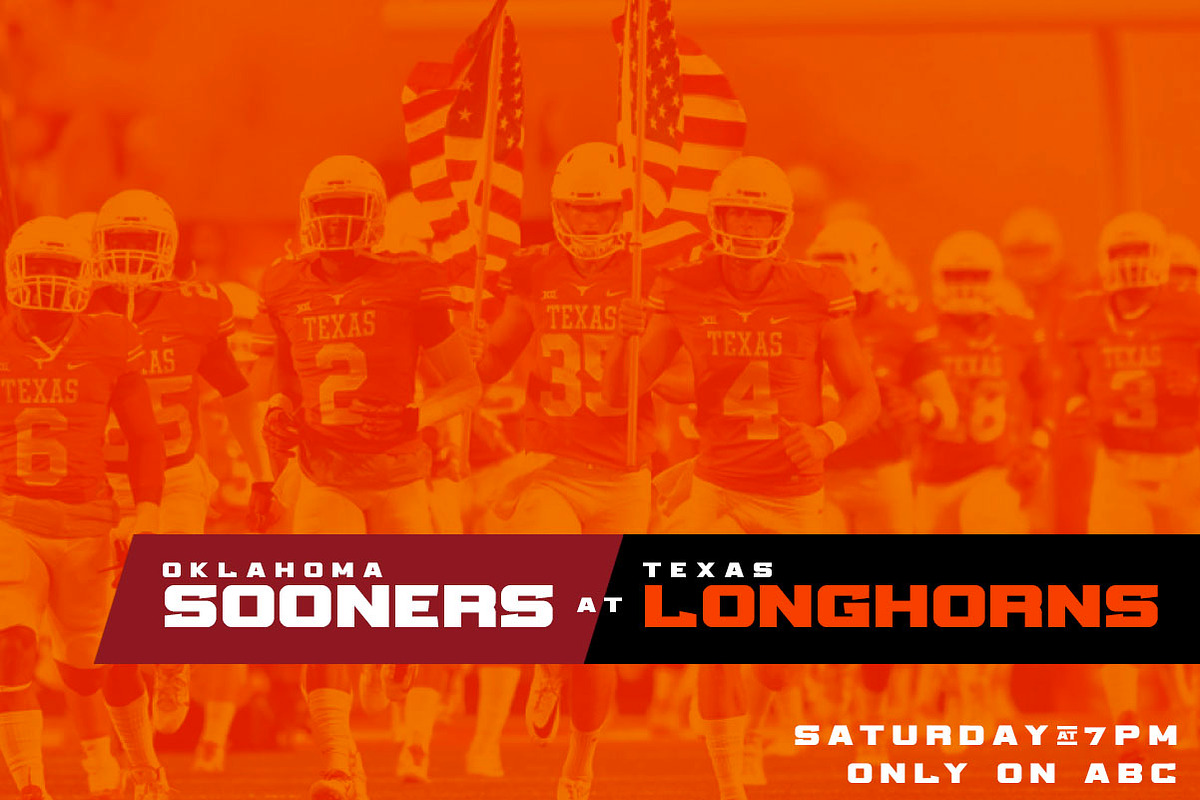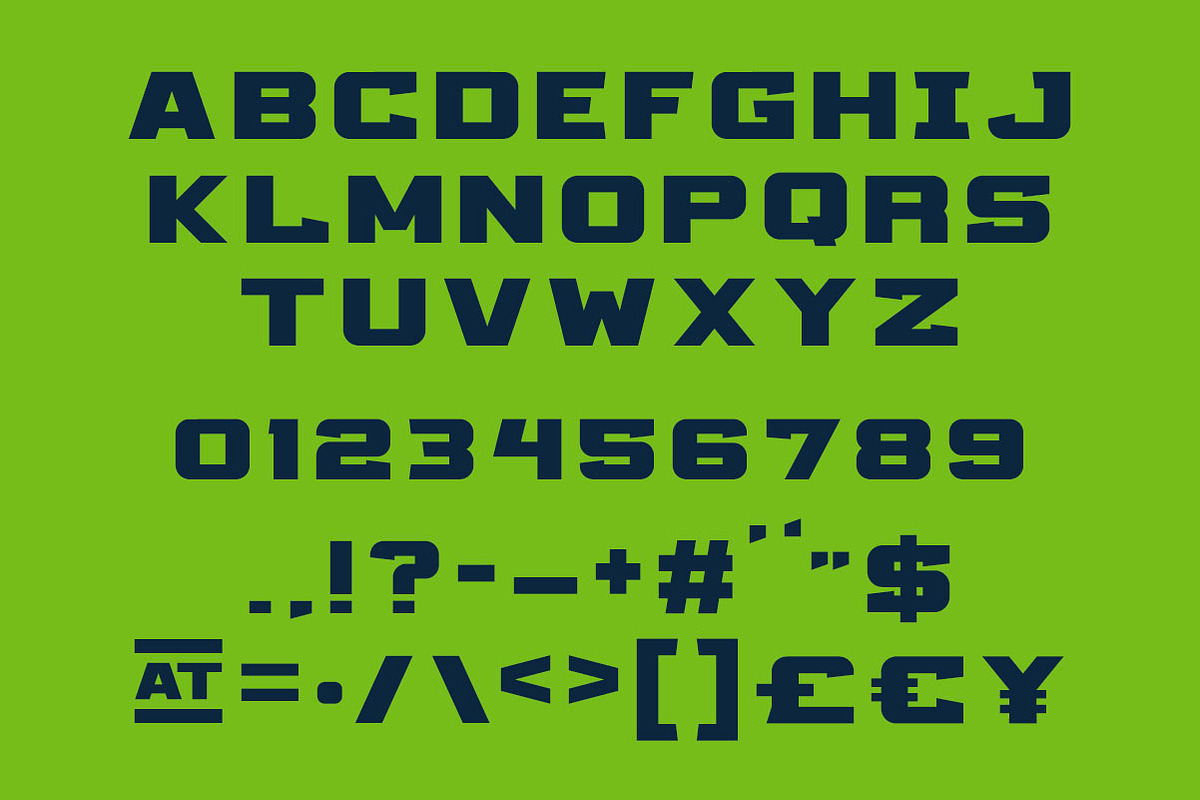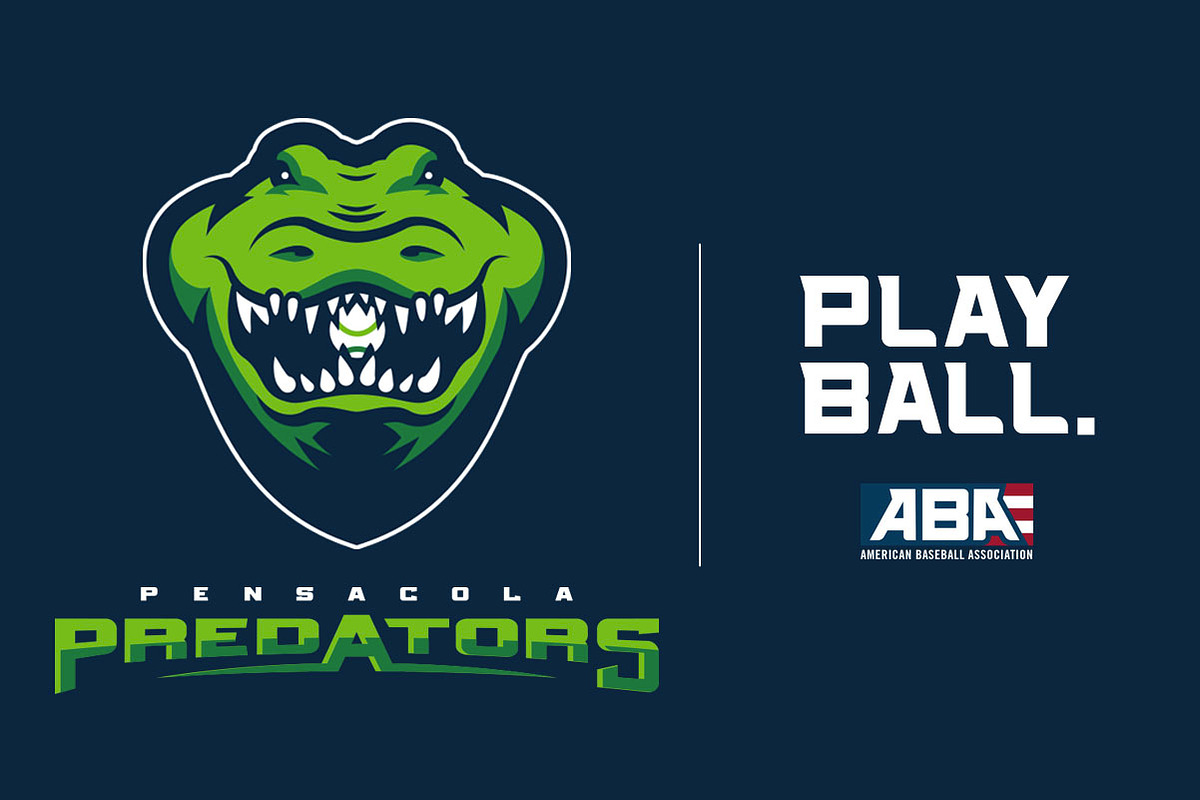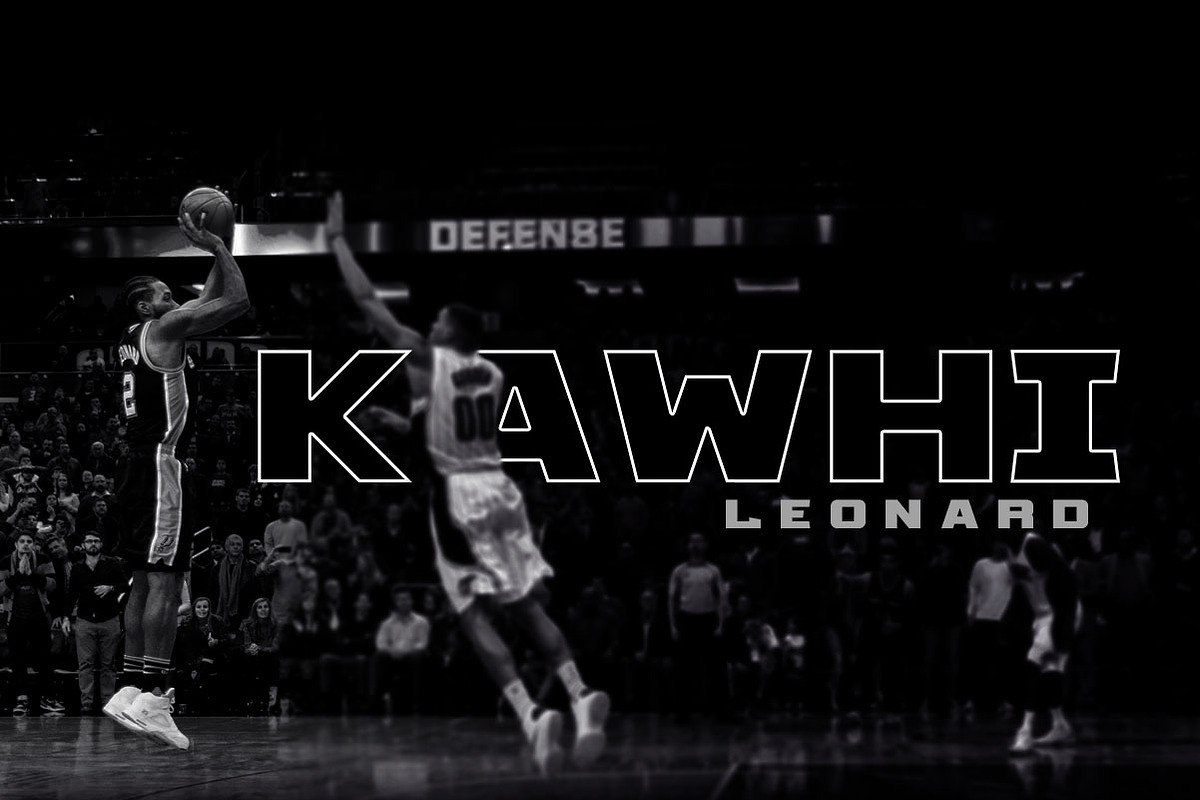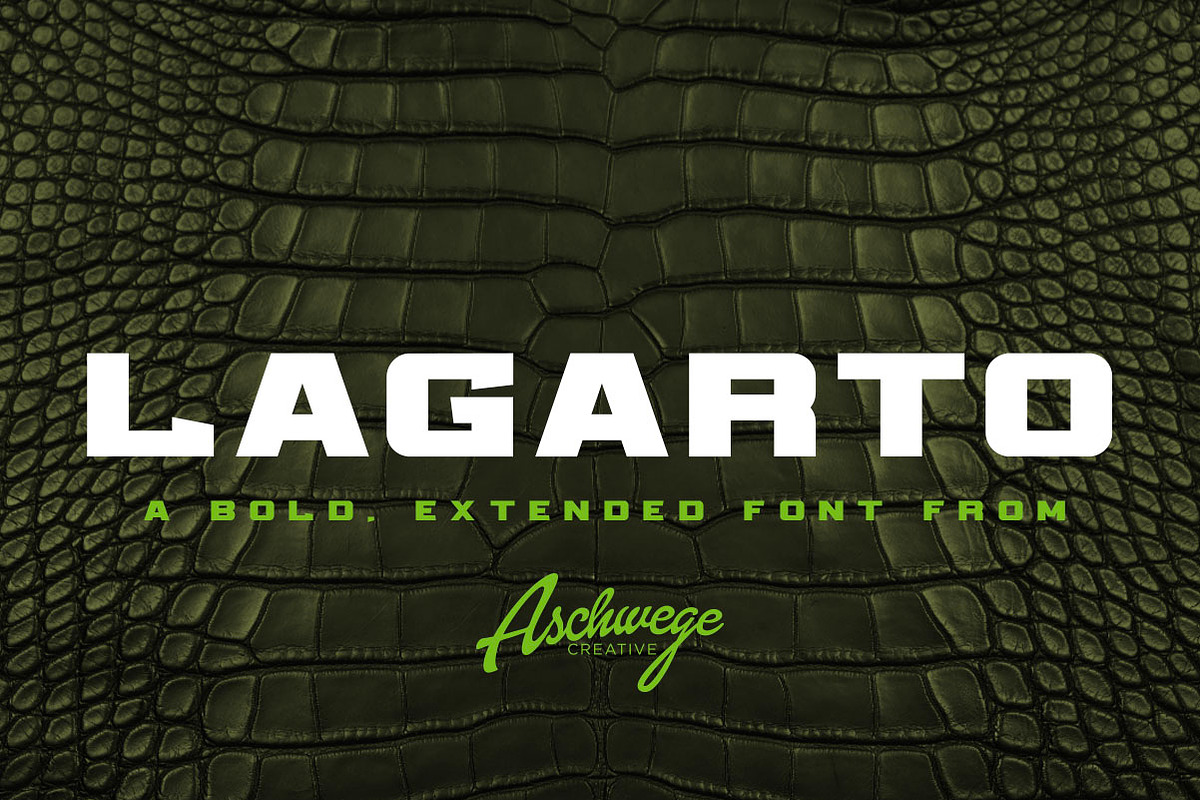
Lagarto
Lagarto, in Latin, means "lizard," and is widely credited with where we get the word for alligator from. But here, Lagarto is a bold, extended typeface that's terrific for aggressive, in-your-face brands and headlines.